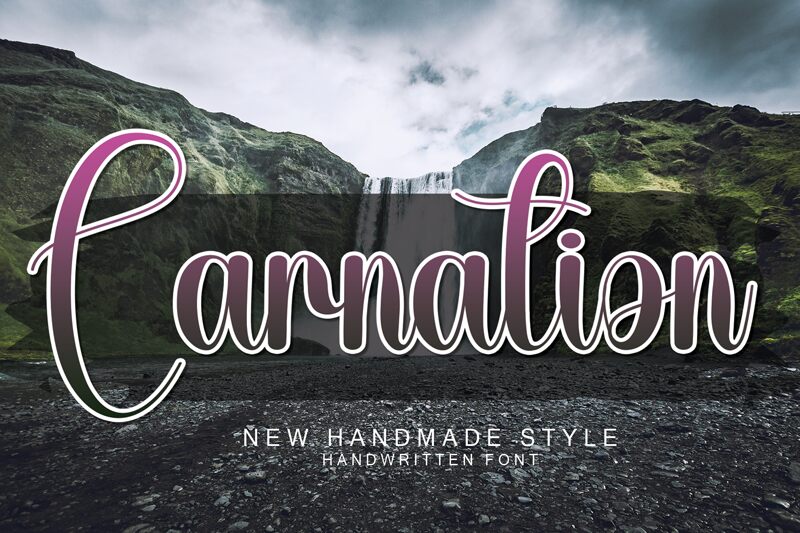
Carnation
Carnation font, created by Scratchones, captures the elegance of calligraphy with its graceful curves and refined strokes. This free font exudes sophistication through its flowing lines and artistic flair, making it ideal for wedding invitations, branding projects, and upscale editorial designs. The Carnation font's smooth transitions and dynamic forms offer a touch of artistry that enhances any text it adorns. Designers seeking a standout typeface for creative and high-end projects will find this calligraphy style perfect for achieving a luxurious look.